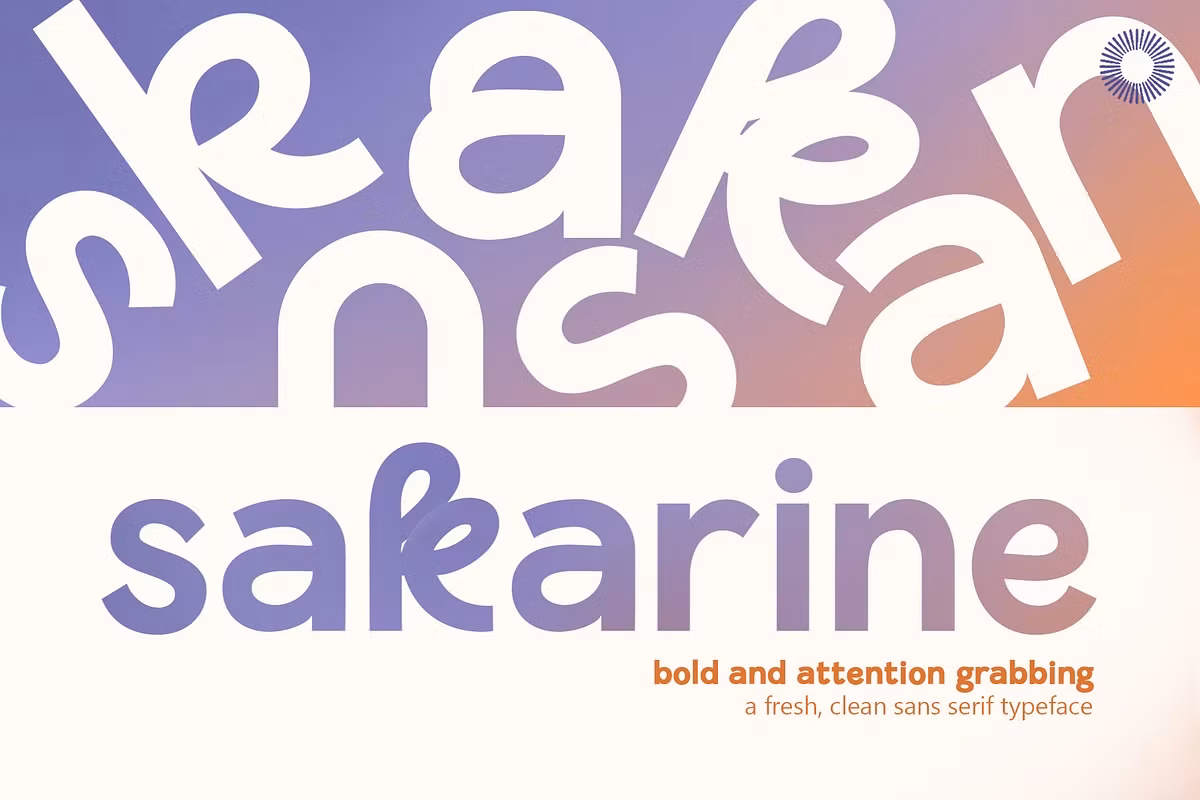
Sakarine - Sans Serif Free Download
Sakarine is a modern sans-serif font known for its clean lines and bold presence. Designed by Setaralangit, it offers a professional and balanced appearance, making it suitable for various applications such as branding, headlines, and digital media. The font features evenly spaced characters, contributing to its clarity and impact.
Design: Sakarine showcases bold lines with a modern aesthetic, ensuring readability and visual appeal.
Usage: Ideal for branding, headlines, posters, and digital media where clarity and impact are essential.